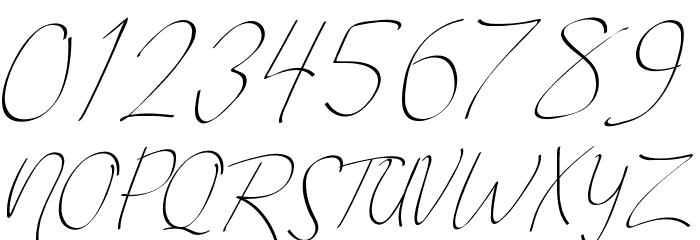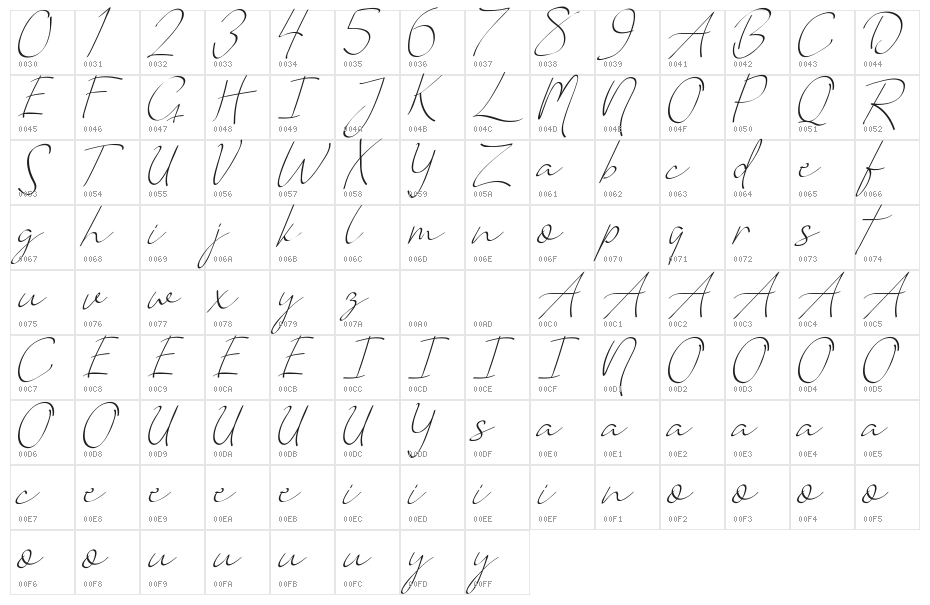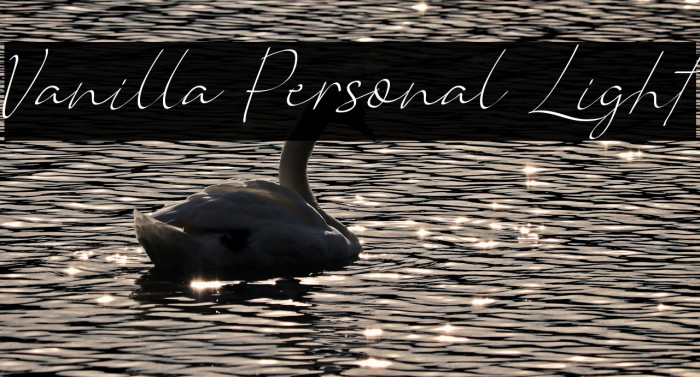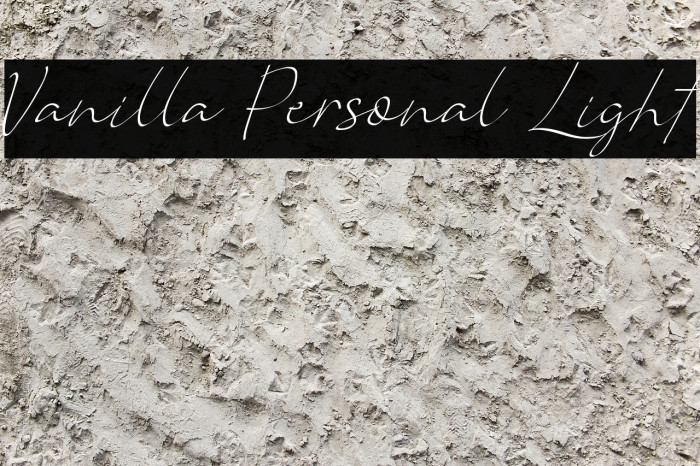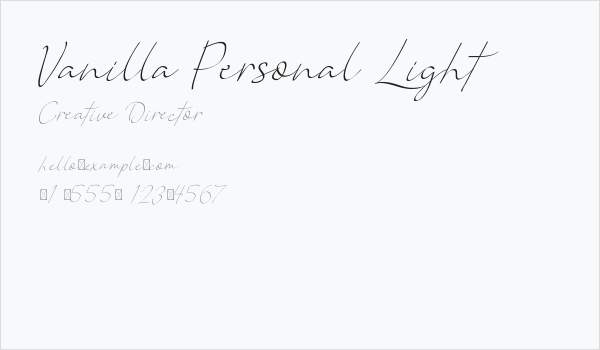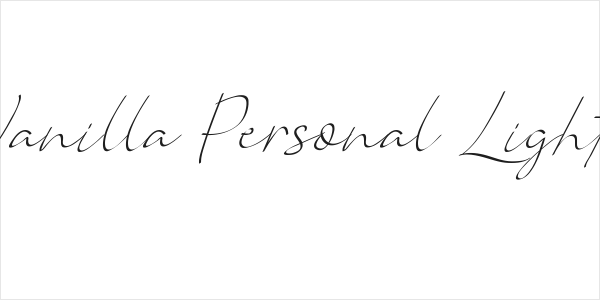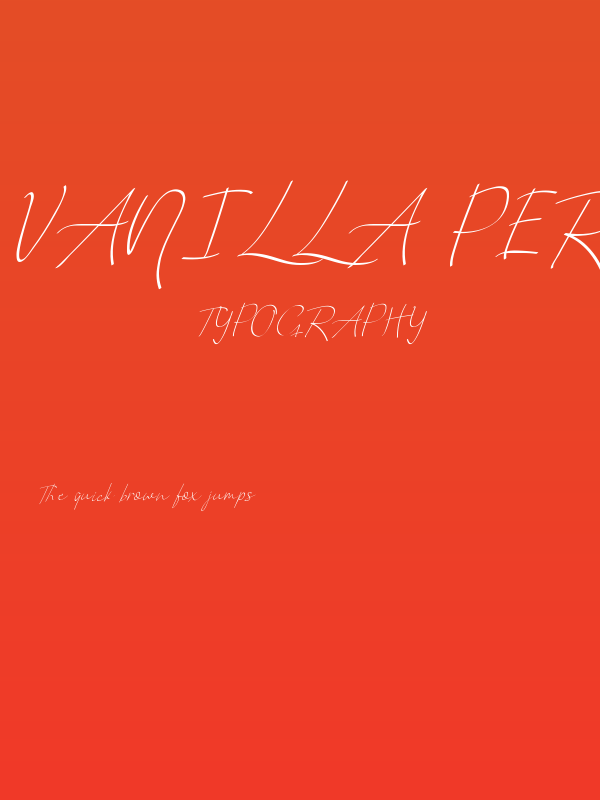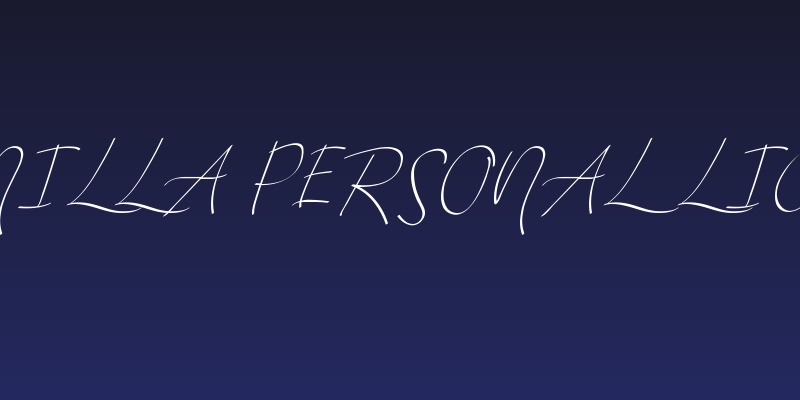
Vanilla Personal Light Font
Vanilla Personal Light Description
This font features a delicate and flowing script style, characterized by its elegant, handwritten appearance. The letters are connected with smooth, sweeping strokes, giving it a graceful and fluid look. The uppercase letters are slightly more structured, while the lowercase letters exhibit a more casual, freeform style. The numerals are consistent with the overall aesthetic, maintaining the same flowing lines. The font's light weight and airy design make it suitable for projects that require a touch of sophistication and elegance.
Overall StyleElegant, Handwritten
Use CaseLogos, Invitations, Personal Branding
Proposed ProjectsIdeal for wedding invitations, greeting cards, personal branding, and elegant stationery.